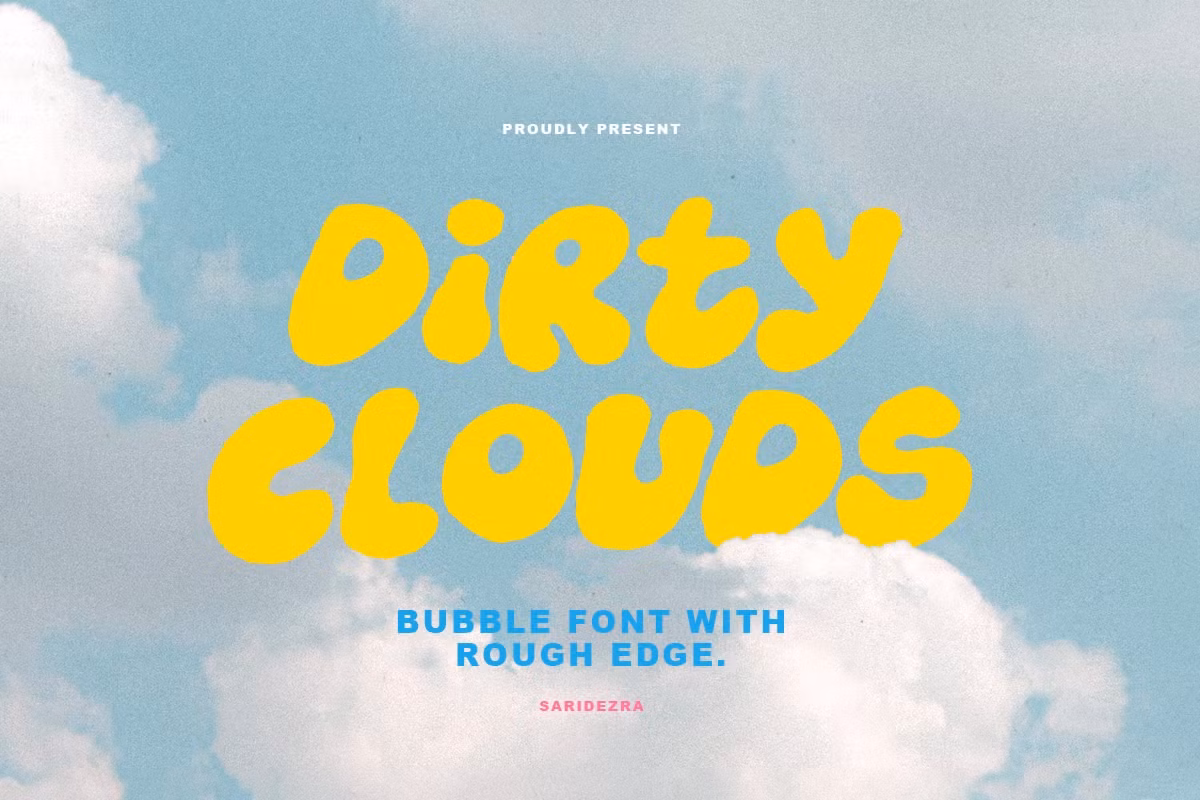
Fun, bold, and full of personality, Dirty Clouds - Rough Bubble Font Free Download is a playful and energetic typeface that brings a dynamic, rough-edged twist to classic bubble lettering. Perfect for posters, social media graphics, t-shirt designs, and branding, this font adds a quirky, hand-drawn touch to your typography.
With its irregular, bubbly letterforms and distressed edges, Dirty Clouds is ideal for projects that need to feel carefree, rebellious, and full of character. Whether you're working on a retro-themed design, a vibrant ad campaign, or a creative project with a bold statement, this font is sure to stand out.